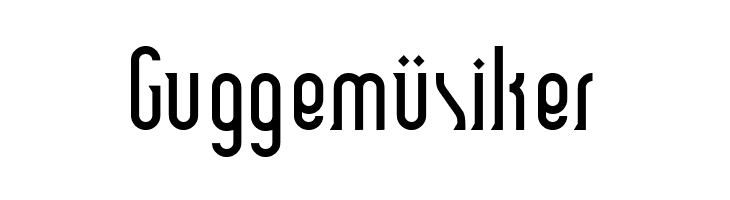
NEXTART-Regular Font
- Font: NEXTART-Regular
( Fonts by Levi Halmos )
A modern, geometric font with elongated, narrow characters and a stylish appearance.